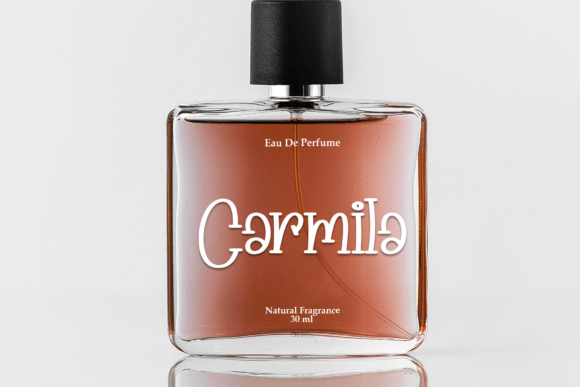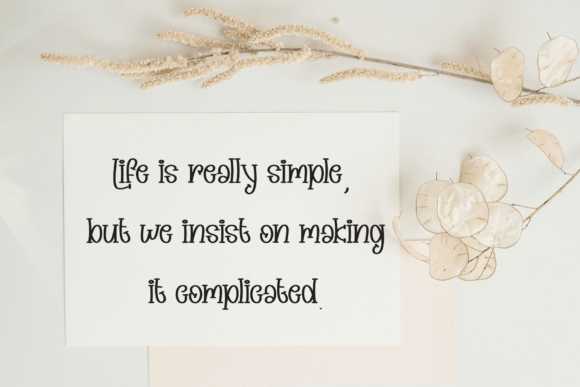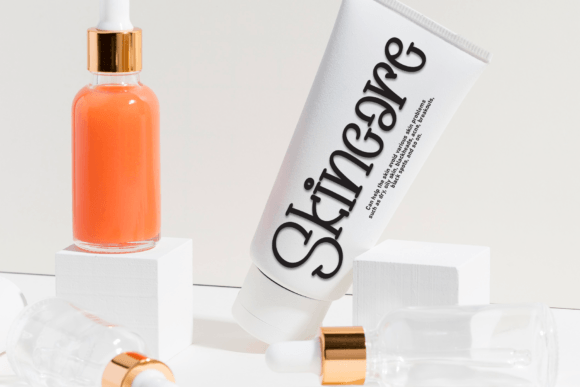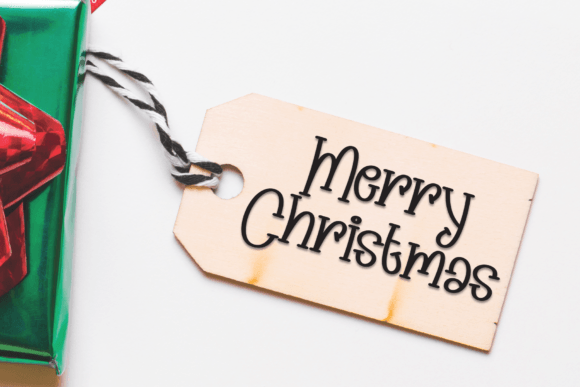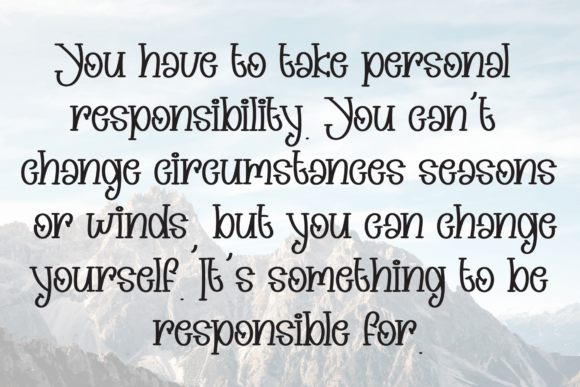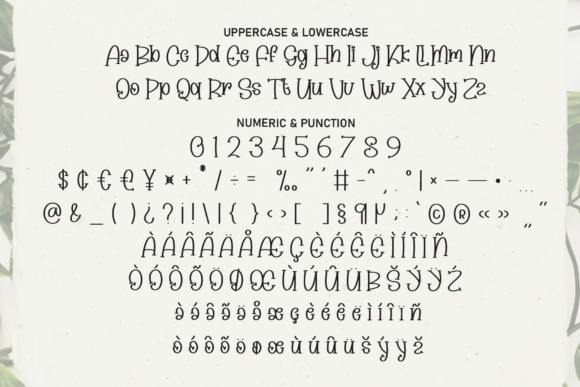
Have you ever found yourself staring at a blank canvas, waiting for inspiration to strike? For designers, those moments of creative block can be frustrating – but what if I told you that the solution lies in a simple, yet powerful tool? The right font can make all the difference in bringing your ideas to life. And for those seeking a playful, handwritten look, there’s one font that stands out from the rest: Charming Alphabet Font.
This delightful font is perfect for adding a warm and friendly touch to your text. With its unique, hand-written style, it’s ideal for invitations, posters, and personal notes that require a personal touch. As a designer, you’ll appreciate the versatility of Charming Alphabet Font, which can add a charming, artistic feel to any project. Whether you’re creating a birthday card or a social media graphic, this font is sure to bring a smile to your viewer’s face.
Key Features of Charming Alphabet Font
- Unique Characteristics: Hand-drawn style, cursive and script elements, and a touch of whimsy
Designer Review: Charming Alphabet Font
The Charming Alphabet Font is a beautiful, hand-drawn font that exudes a sense of whimsy and elegance. ✨ Its unique, flowing letters are perfect for creating eye-catching headings and titles. The font’s subtle imperfections add to its charm, making it feel more like a handwritten font than a digital one. ✨ The character set is comprehensive, covering a wide range of languages and special characters.
- The font’s versatility makes it suitable for a variety of projects, from children’s books to fashion magazines.
However, there are a few limitations to consider: ⚠️ The font’s thin lines can sometimes make it difficult to read at small sizes, and the font’s ligatures can be inconsistent. ⚠️ Additionally, the font’s unique style may not be to everyone’s taste.
Overall, the Charming Alphabet Font is a great choice for designers who want to add a touch of personality to their projects. While it may have some limitations, its unique charm and versatility make it a worthwhile addition to any font collection.
- Use it in conjunction with other playful fonts for a whimsical effect.
- Experiment with different font sizes and colors to add visual interest.
- Combine it with illustrations or graphics for a cohesive design.
The Charming Alphabet Font is ideal for:
- Children’s books and educational materials.
- Party invitations and decorations.
- Brand logos and marketing materials.